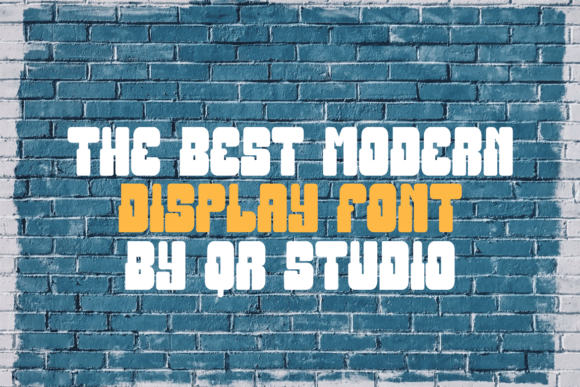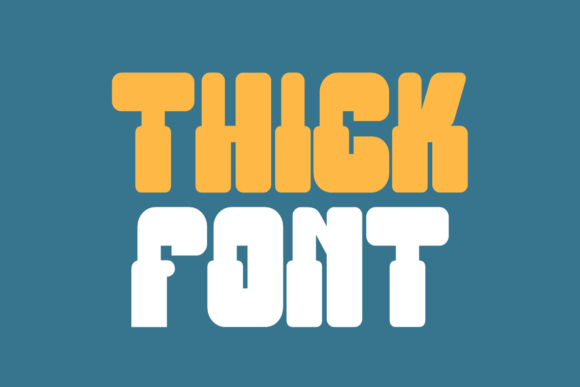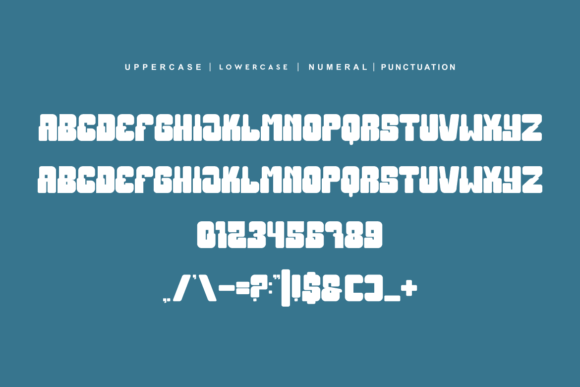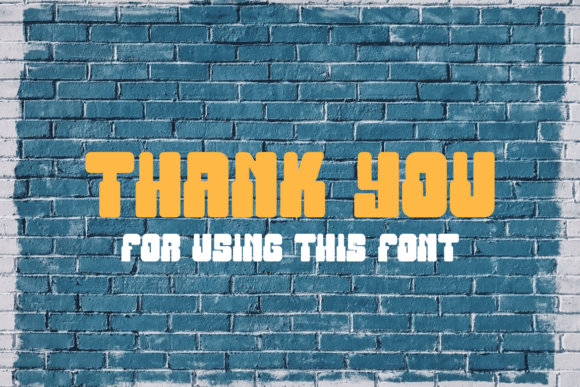
Introduction to Sanrio Font
Sanrio is a unique and interesting decorative display font.
A little bit quirky, this font looks incredibly adept on a wide variety of contexts .